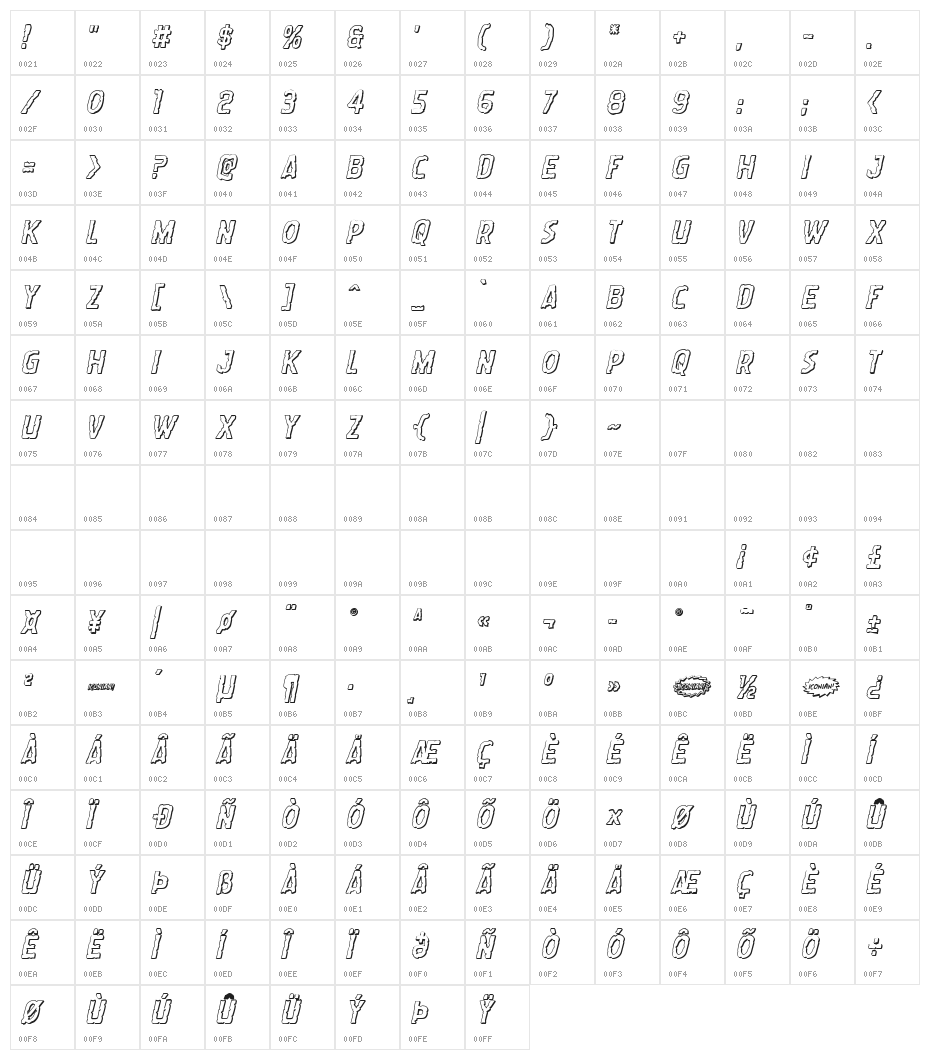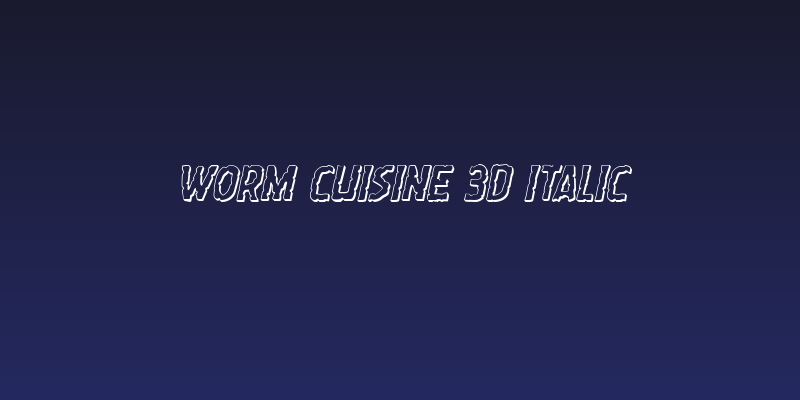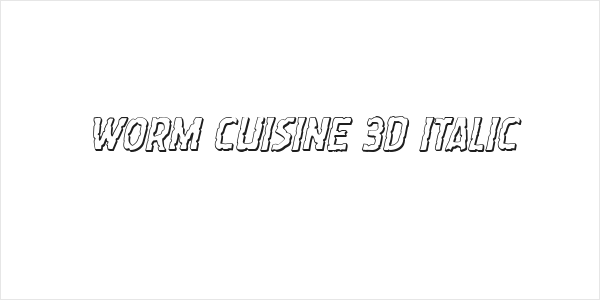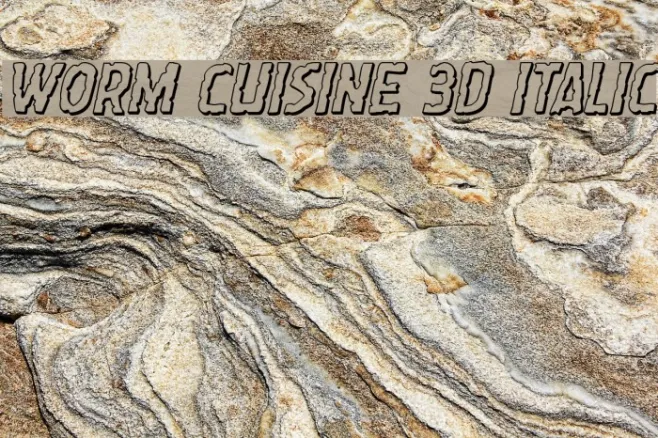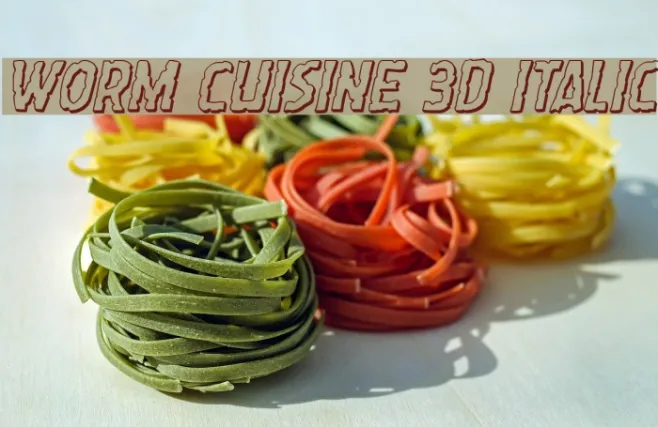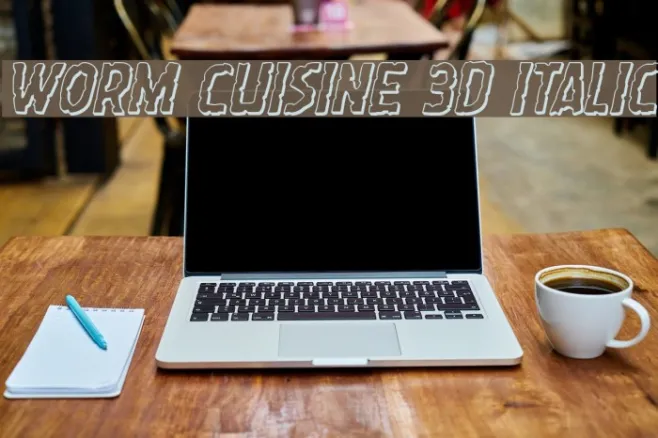
Worm Cuisine 3D Italic Font
Worm Cuisine 3D Italic Description
This font features a playful and bold 3D effect with an italic slant, giving it a dynamic and energetic appearance. The characters are outlined with a shadow that enhances the three-dimensional look, making each letter pop off the page. The style is reminiscent of comic book lettering, with a slightly irregular and hand-drawn quality that adds to its charm. The uppercase and lowercase letters maintain a consistent style, while the numbers and special characters are designed to match the overall aesthetic. This font is eye-catching and ideal for projects that require a fun and engaging visual impact.
| Proposed Projects | Ideal for comic books, children's books, playful branding, posters, and any design needing a fun and dynamic look. |